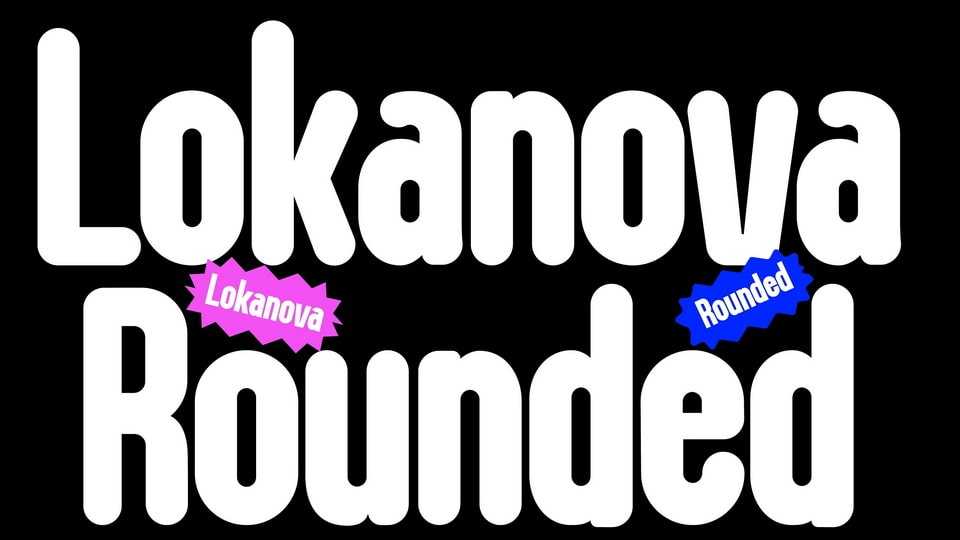
Download Lokanova Rounded font, a display typeface with a sans serif type designed in a bold, rounded, geometric style to give the impression of a firm but still playful design.